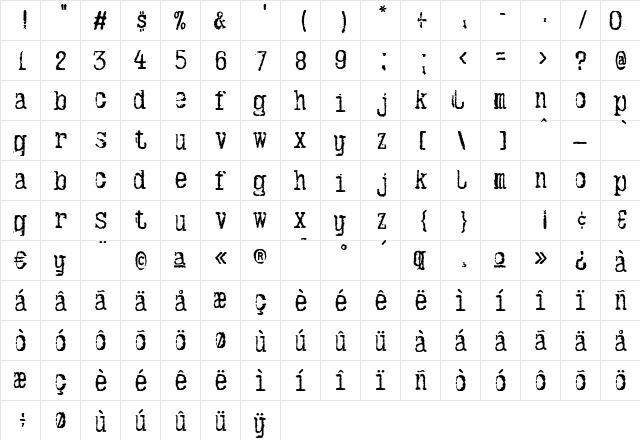
CablegramOttoman Regular
Design Context for CablegramOttoman Typeface
CablegramOttoman is a composed and adaptable typeface that performs quietly and consistently across a wide range of design contexts.